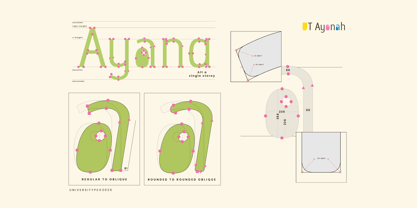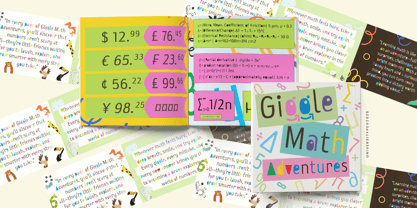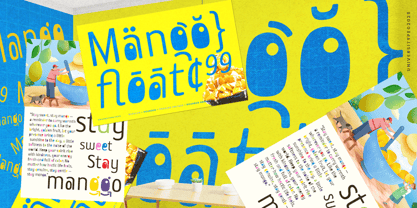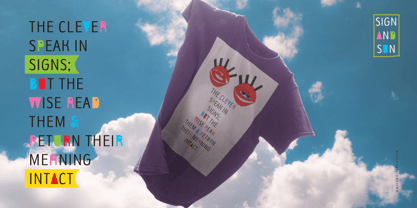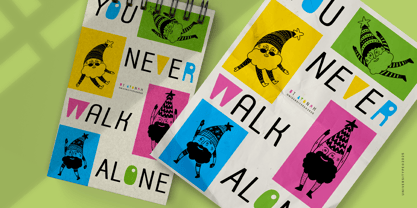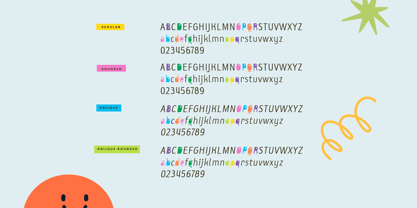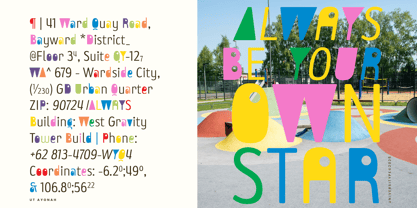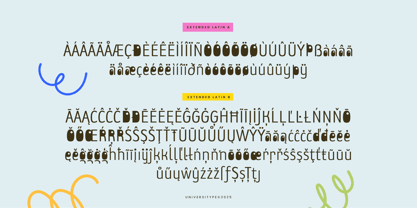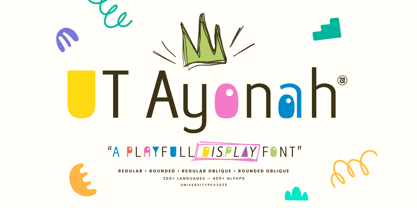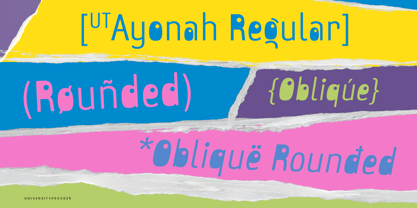
UT Ayonah
The UT Ayonah Font Family was designed by Muh. Aswar, Andi Syahdang and published by Universitype. UT Ayonah contains 4 styles and family package options. More about this family
UT Ayonah is a friendly display typeface characterized by its soft geometry and playful details. Designed to evoke warmth and approachability, it is ideal for creative projects that require personality without sacrificing clarity. With four matching styles—Regular, Rounded, Oblique, and Oblique Rounded—UT Ayonah offers flexibility while maintaining a consistent visual tone across various layouts. What’s Included: - 4 font styles: Regular, Rounded, Oblique, Oblique Rounded -300+ glyphs - Multilingual Latin support Best For: - Branding and logos - Posters and flyers - Packaging design - Kids and family-oriented projects - Social media graphics - Website headers and UI accents This versatile typeface is perfect for any project that aims to engage and connect with its audience.